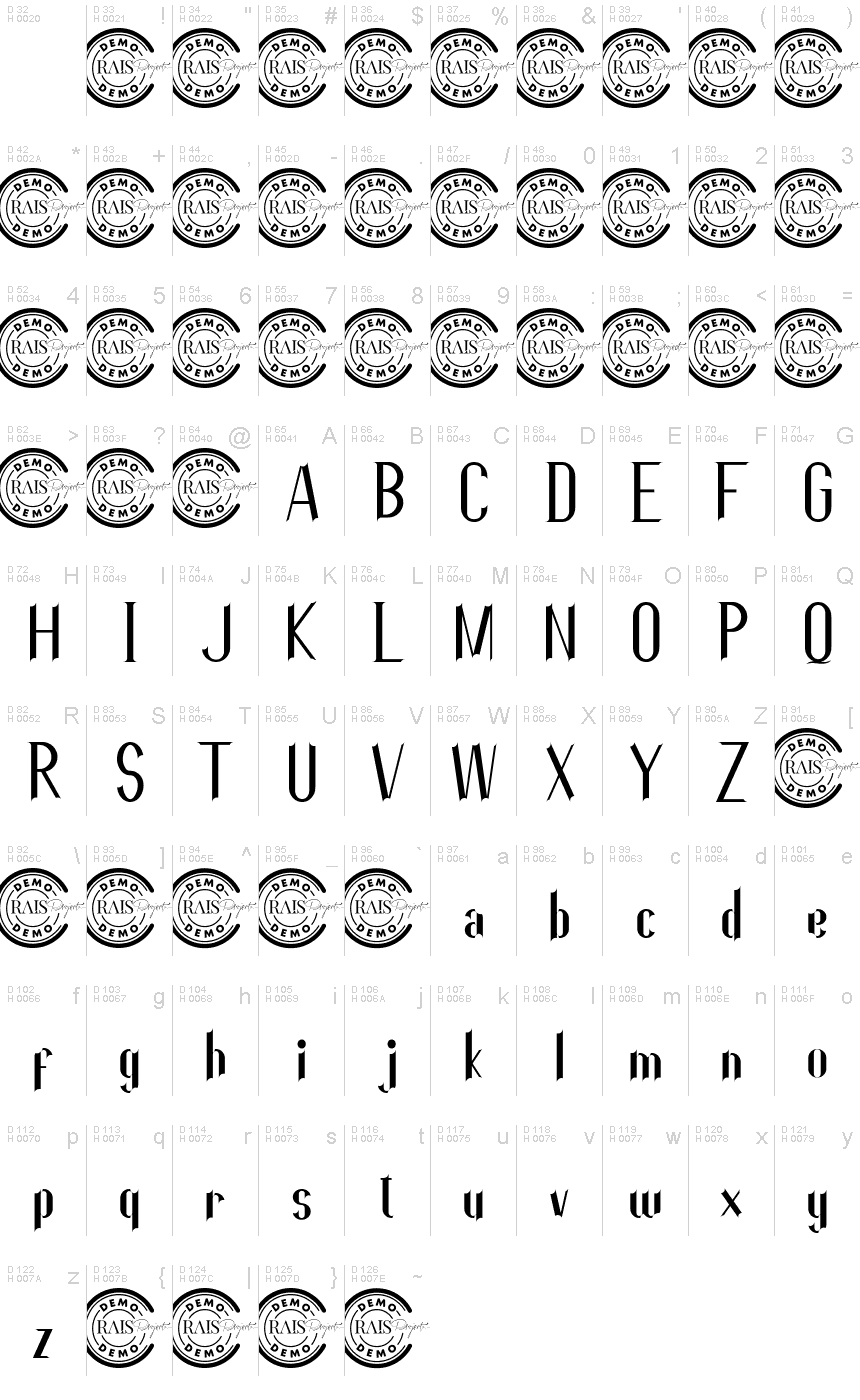
Metalish, the gothic typeface designed by RaisProject, is the perfect blend of modern and classic. With a semi-light weight and condensed width, it's a versatile font suitable for various projects. Its edgy appearance makes Metalish ideal for metal bands' album art or tattoo designs. The sleekness of the font also lends itself well to fashion magazines and high-end branding. Don't let its boldness fool you; Metalish can soften up for elegant wedding invitations or minimalistic websites.